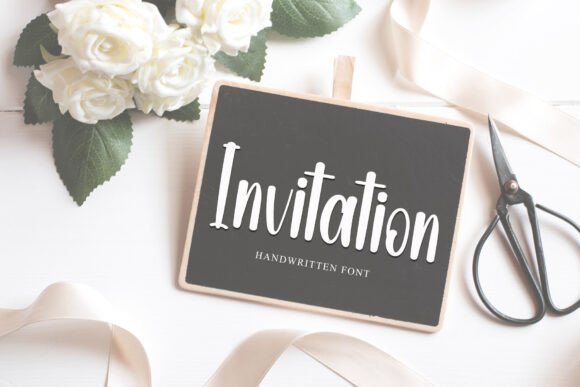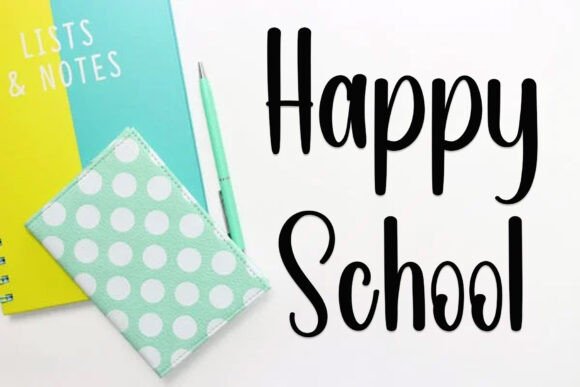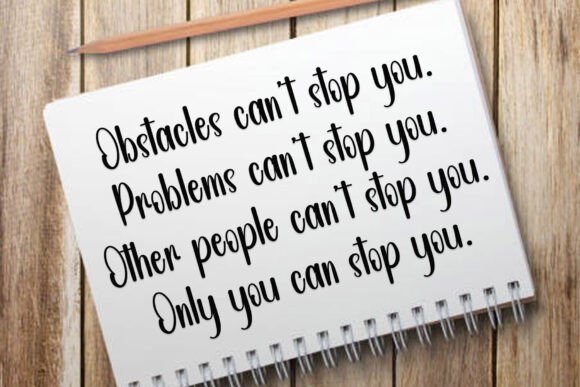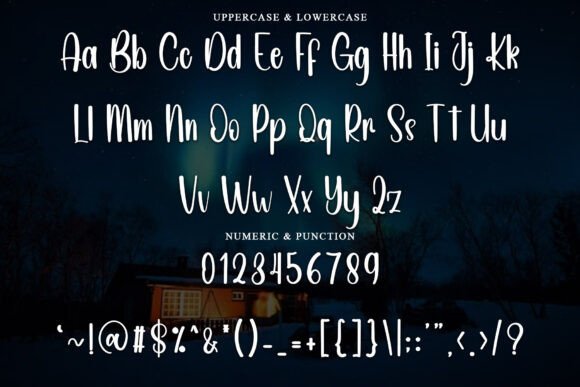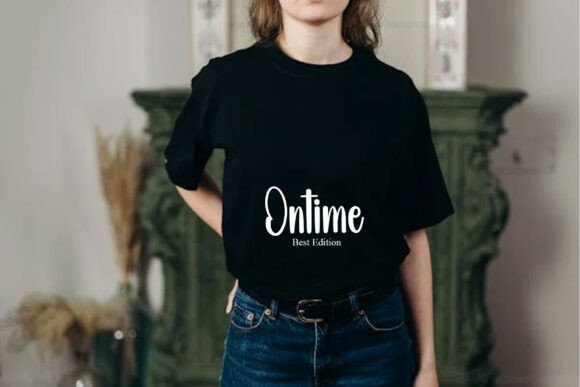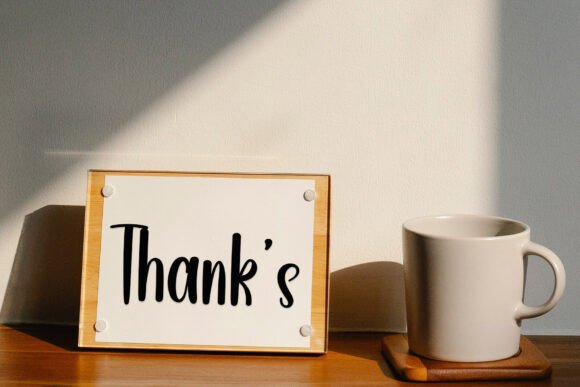
Introducing Farmhouse Christmas Font: The Perfect Blend of Freshness and Elegance
Are you looking for a font that captures the essence of a charming Christmas? Look no further than the Farmhouse Christmas font. This beautiful handwritten font is designed to bring a sense of freshness and casual elegance to your design projects. With its fluid strokes and organic lines, Farmhouse Christmas is perfect for creating a laid-back vibe that’s sure to delight.
What Makes Farmhouse Christmas Font So Special?
Farmhouse Christmas font is a unique and charming typeface that’s imbued with a sense of warmth and personality. Its fluid strokes and organic lines give it a natural, effortless feel that’s perfect for a variety of design projects. Whether you’re creating branding materials, invitations, or social media graphics, Farmhouse Christmas font is sure to add a touch of elegance and sophistication.
Farmhouse Christmas font is a versatile typeface that’s perfect for designers and crafters alike. Its charming and elegant design makes it ideal for a wide range of projects, from Christmas cards and invitations to social media graphics and branding materials. With Farmhouse Christmas font, you can add a personal touch to your designs and create something truly special.
Key Features of Farmhouse Christmas Font
- Handwritten design: Farmhouse Christmas font features a beautiful handwritten design that’s perfect for creating a personal and elegant feel.
- Fluid strokes and organic lines: The font’s fluid strokes and organic lines give it a natural, effortless feel that’s perfect for a variety of design projects.
- Laid-back vibe: Farmhouse Christmas font is designed to evoke a laid-back vibe that’s perfect for creating a sense of warmth and personality in your designs.
- Perfect for Christmas projects: As its name suggests, Farmhouse Christmas font is perfect for Christmas projects, including cards, invitations, and social media graphics.
How to Use Farmhouse Christmas Font in Your Designs
Farmhouse Christmas font is easy to use and can be incorporated into a wide range of design projects. Here are a few ideas to get you started:
- Christmas cards and invitations: Use Farmhouse Christmas font to create beautiful and elegant Christmas cards and invitations that are sure to impress.
- Social media graphics: Add a personal touch to your social media graphics with Farmhouse Christmas font, perfect for creating festive and engaging content.
- Branding materials: Use Farmhouse Christmas font to create branding materials that are warm, elegant, and inviting.
- Craft projects: Farmhouse Christmas font is also perfect for craft projects, such as making Christmas decorations, gift tags, and more.
Tips for Getting the Most Out of Farmhouse Christmas Font
Here are a few tips for getting the most out of Farmhouse Christmas font:
- Experiment with different colors: Farmhouse Christmas font looks great in a variety of colors, so don’t be afraid to experiment and find the perfect hue for your design.
- Pair with other fonts: Farmhouse Christmas font pairs well with other fonts, so try combining it with a bold font for headings and a clean font for body text.
- Use it sparingly: Farmhouse Christmas font is a statement font, so use it sparingly to add emphasis and personality to your designs.
Farmhouse Christmas font is a charming and elegant typeface that’s perfect for designers and crafters alike. With its fluid strokes and organic lines, it’s sure to add a touch of warmth and personality to your designs. Whether you’re creating Christmas cards, social media graphics, or branding materials, Farmhouse Christmas font is the perfect choice. So why wait? Download Farmhouse Christmas font today and start creating your own beautiful designs.